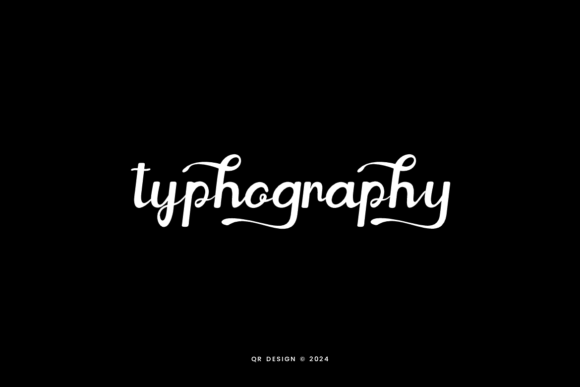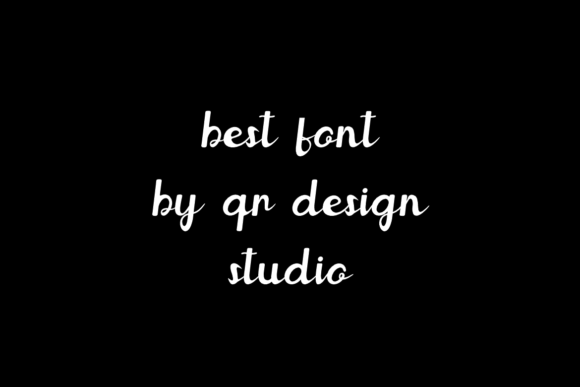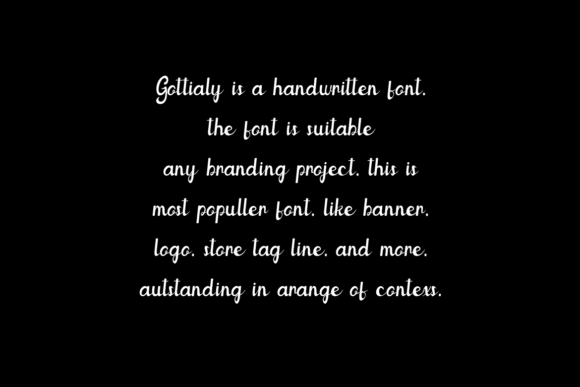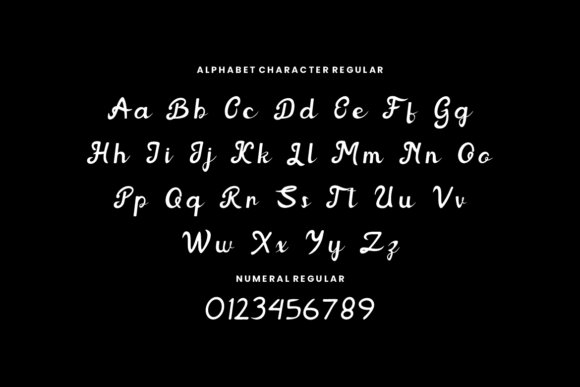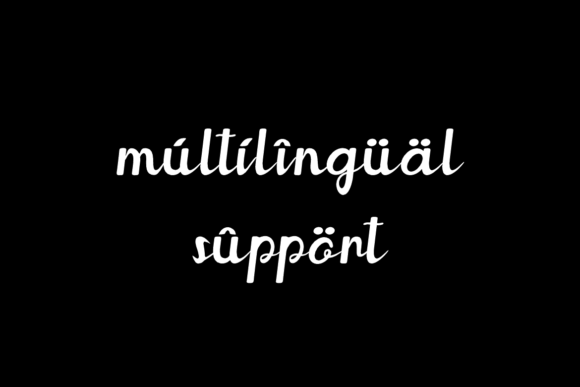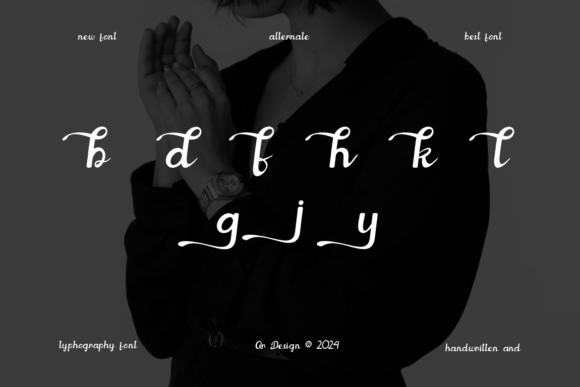
Introduction to Gottialy Font
Gottialy is a stylish handwritten font with an elegant and flowing design.
It’s perfect for adding a personal and sophisticated touch to invitations, logos, and greeting cards The letters are smooth and connected, making your text look graceful and unique.
Key Features of Gottialy Font
Why Choose Gottialy Font?
Gottialy Font offers exceptional quality and versatility, making it a valuable addition to your design toolkit. Whether you’re creating for personal projects or commercial use, Gottialy Font delivers professional results.